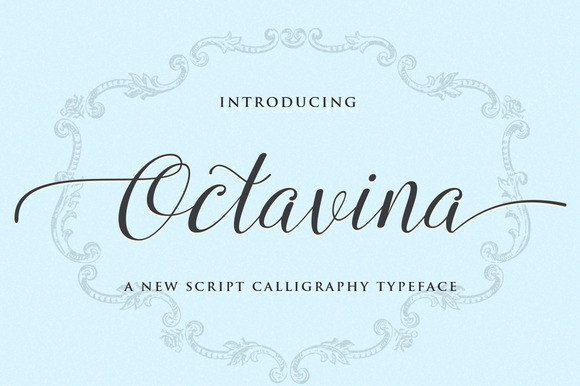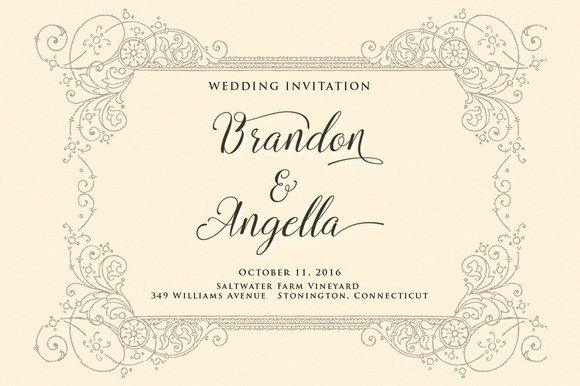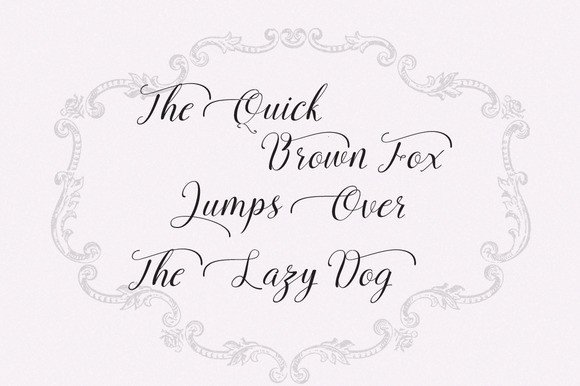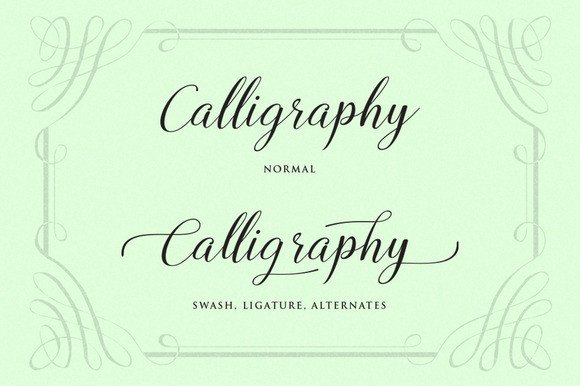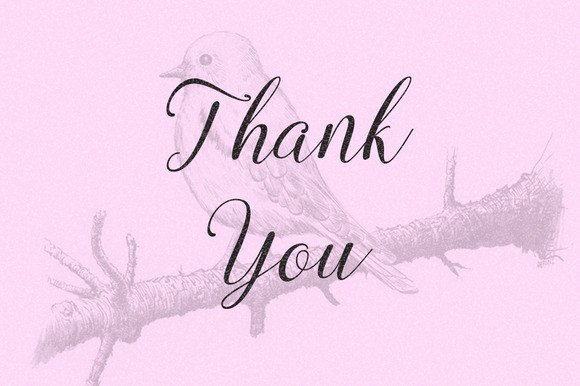
Octavina Font
About Octavina Font
Octavina is a stunning handwritten script font. It comes packed with loads of alternates.
These alternates are split in different fonts, which makes this a super easy to use font.